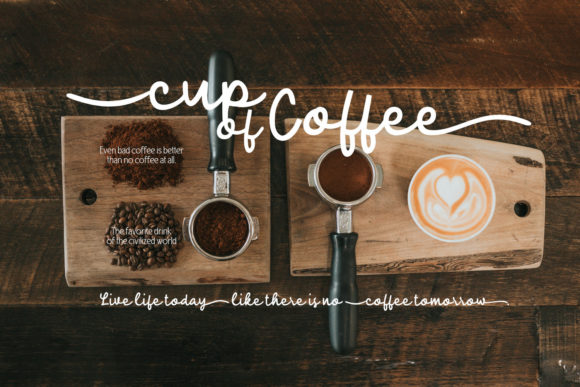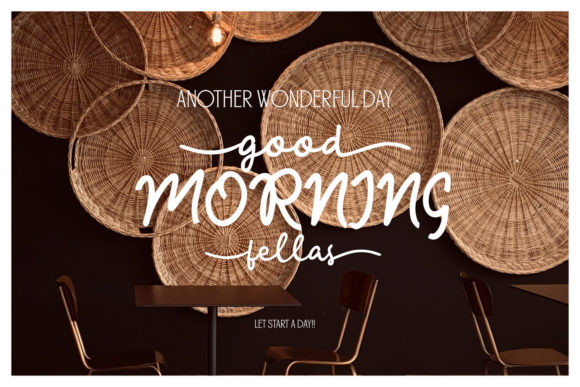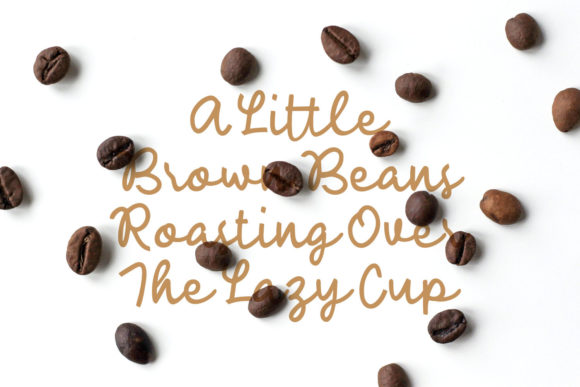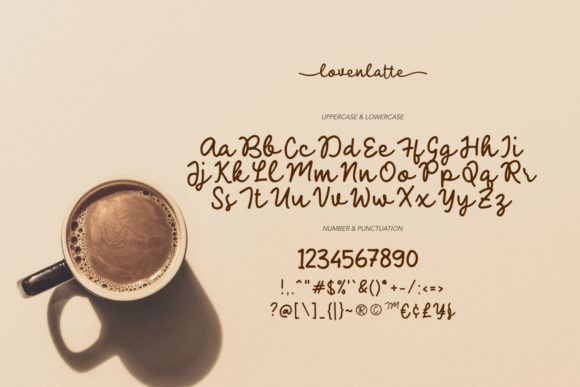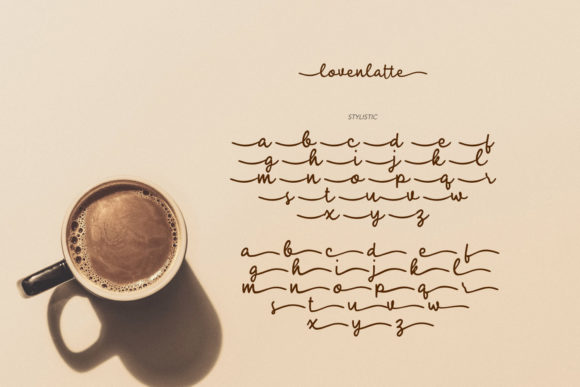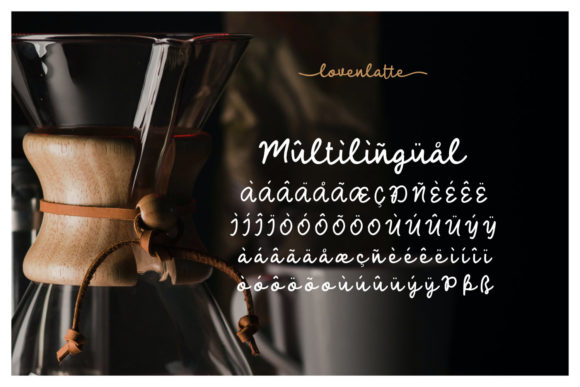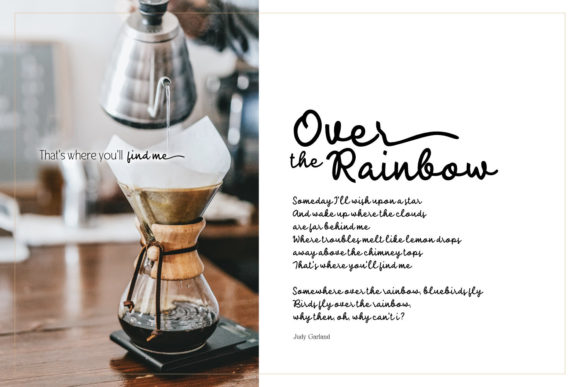
Loven Latte Font
About Loven Latte Font
Loven Latte is a vintage styled, delicate and natural script font. Use it for projects that need lovely, romantic typography! This font is PUA encoded, which means you can access all of the glyphs and swashes with ease!